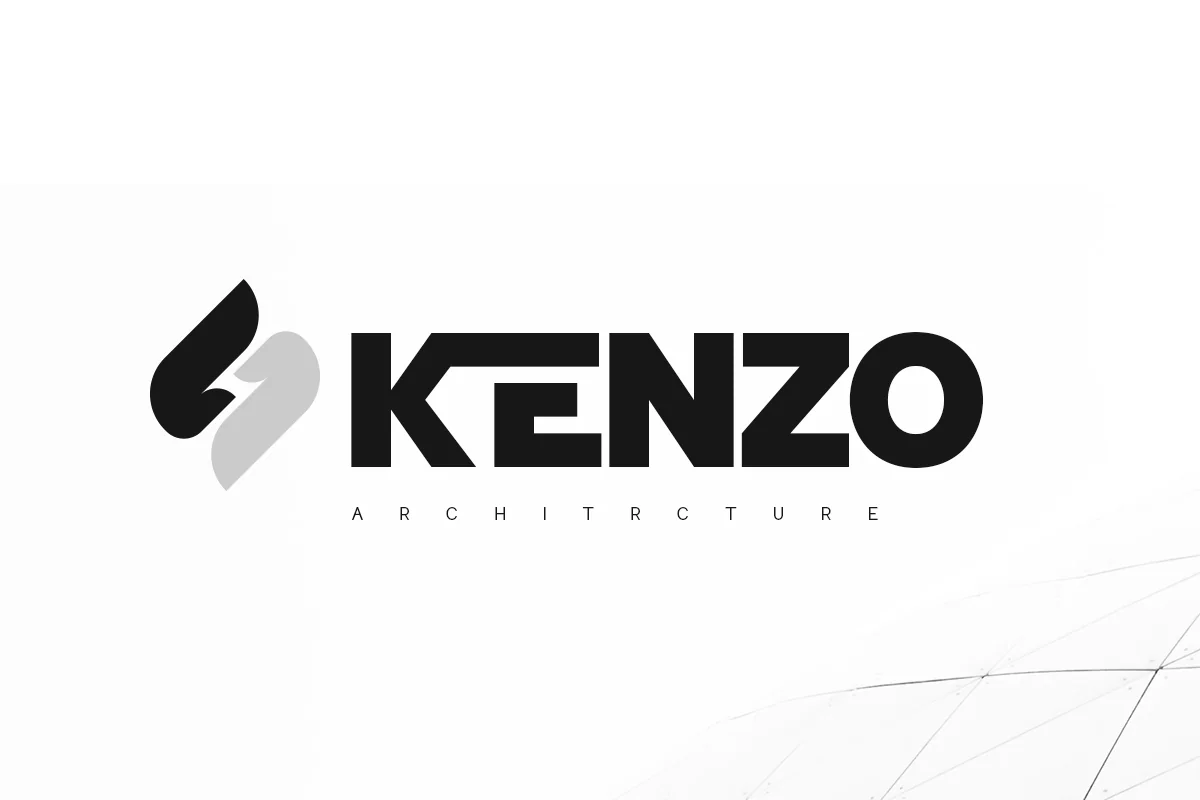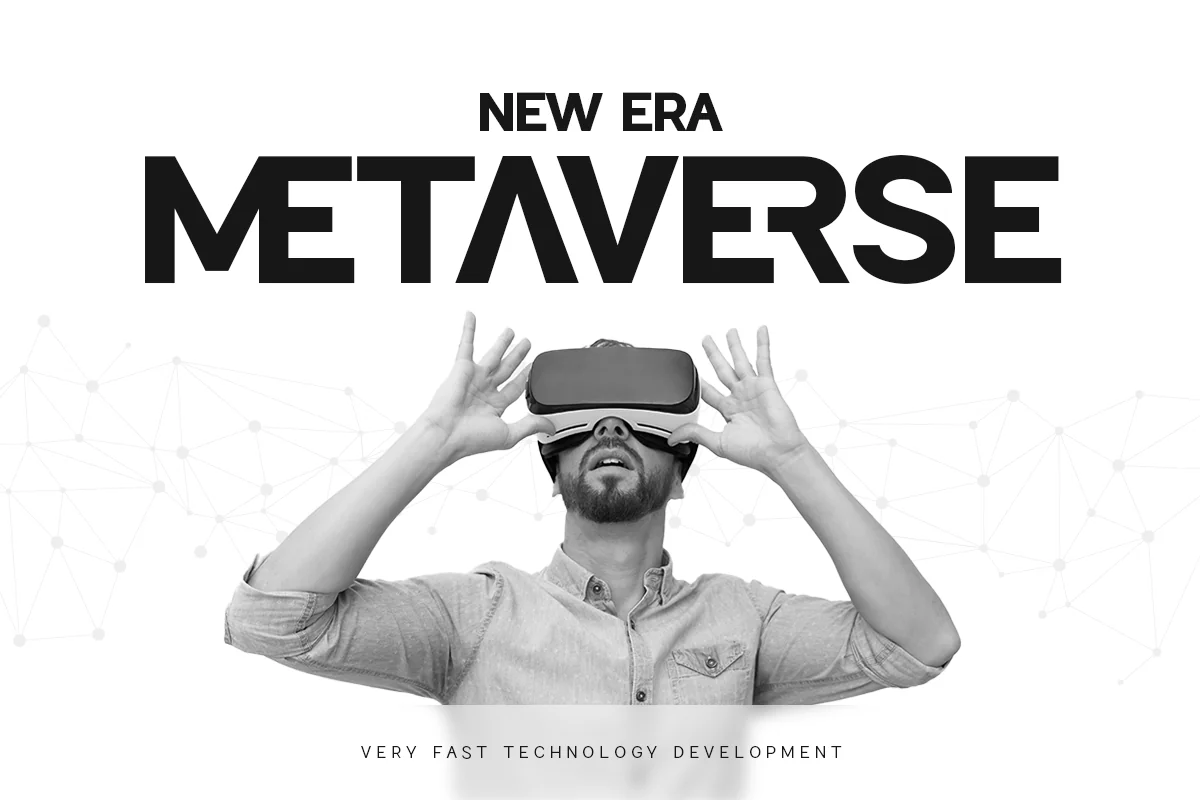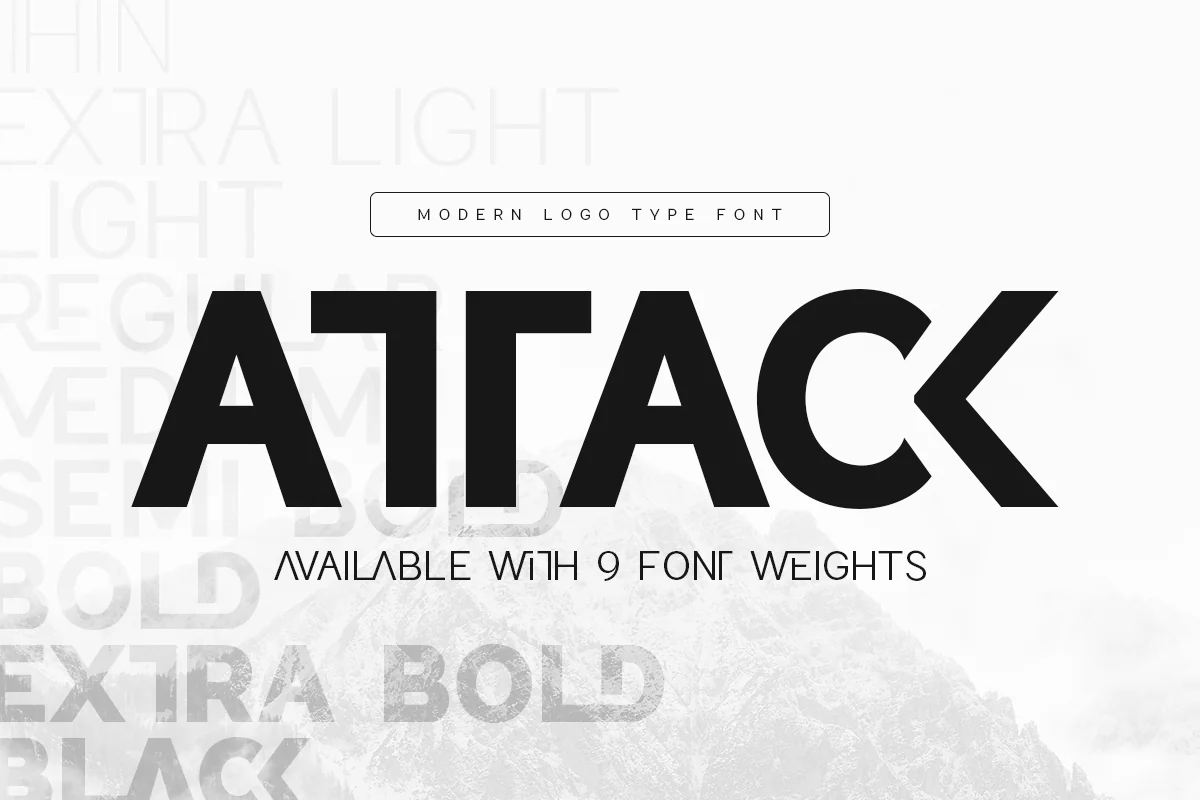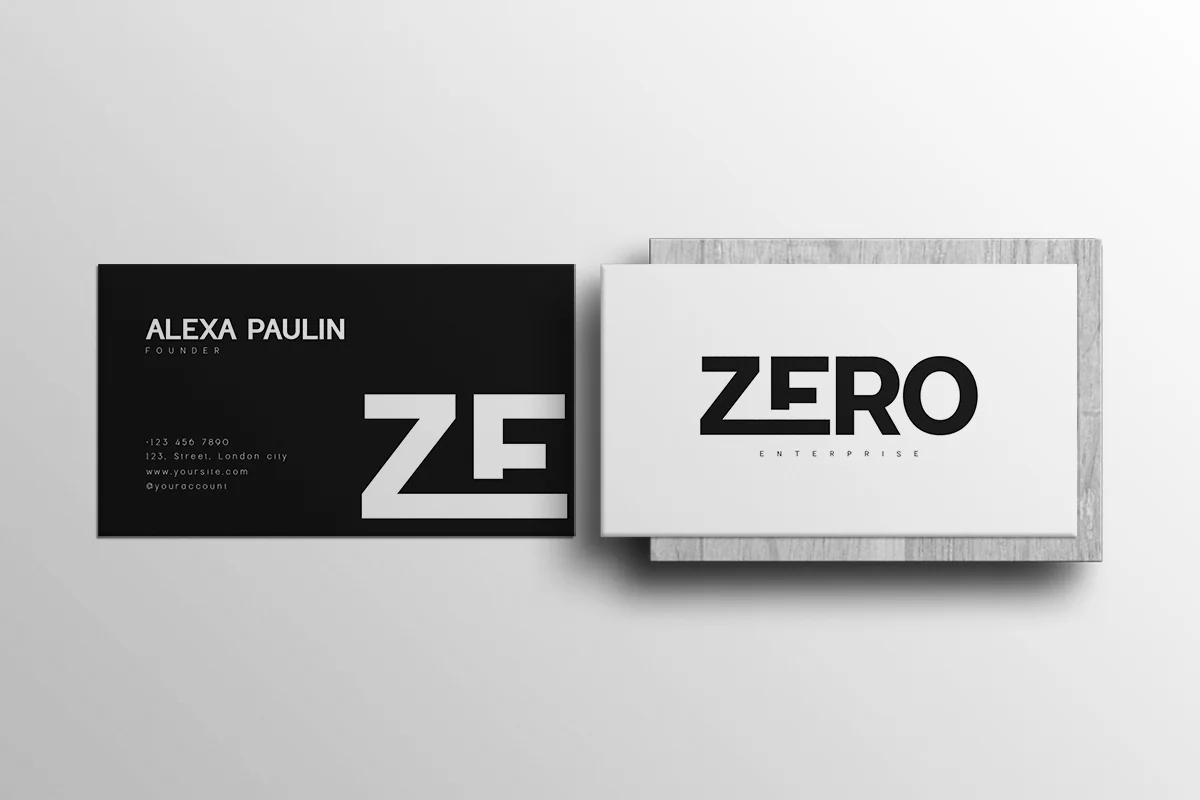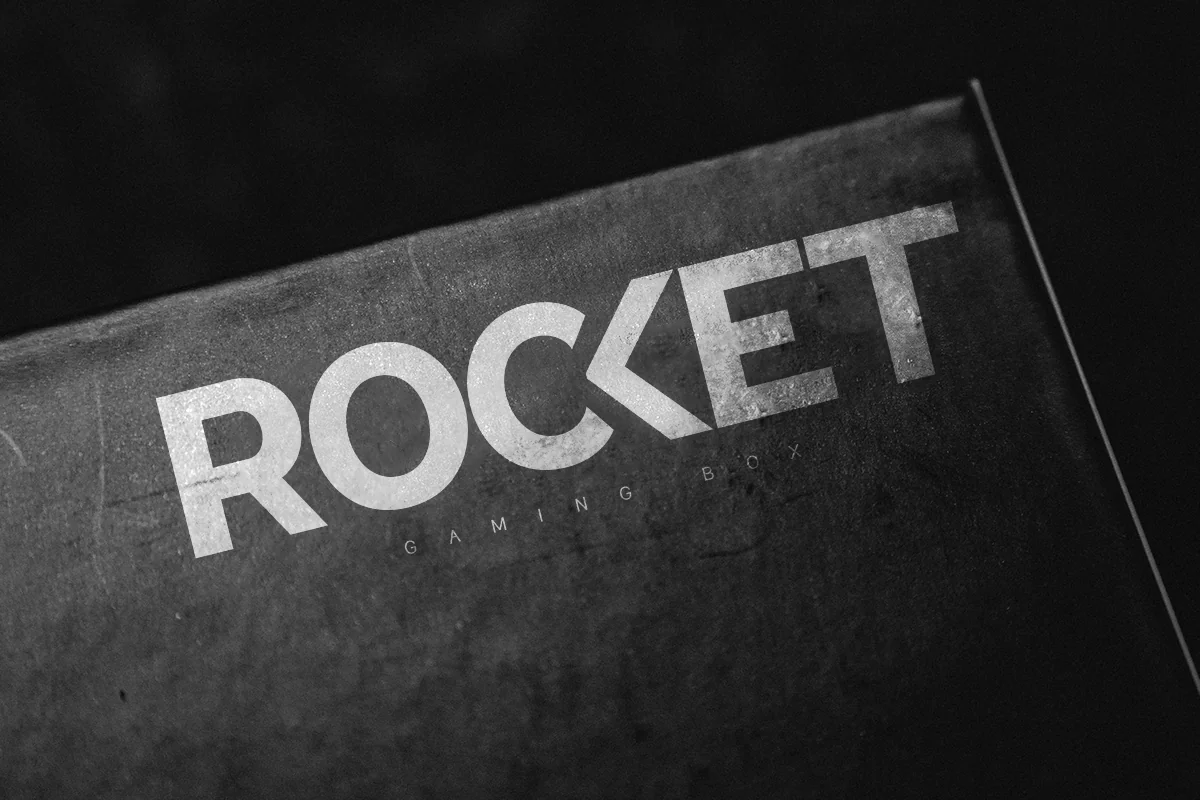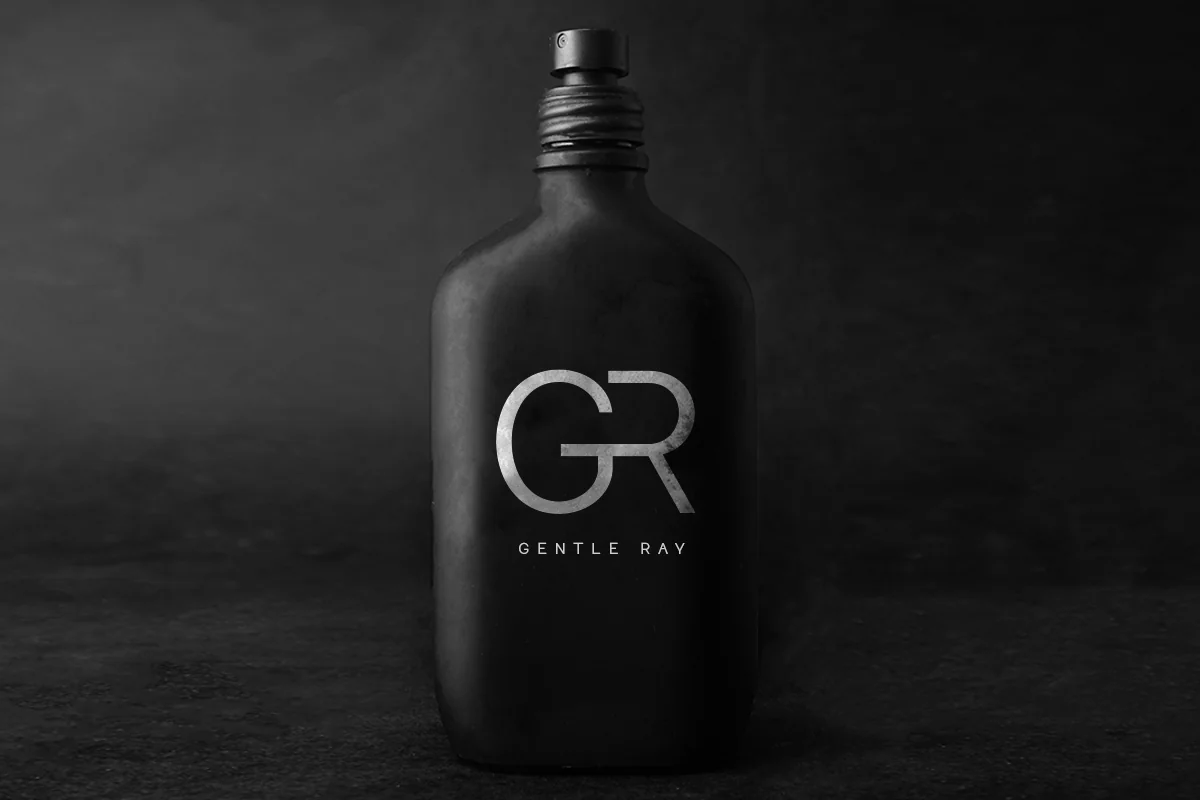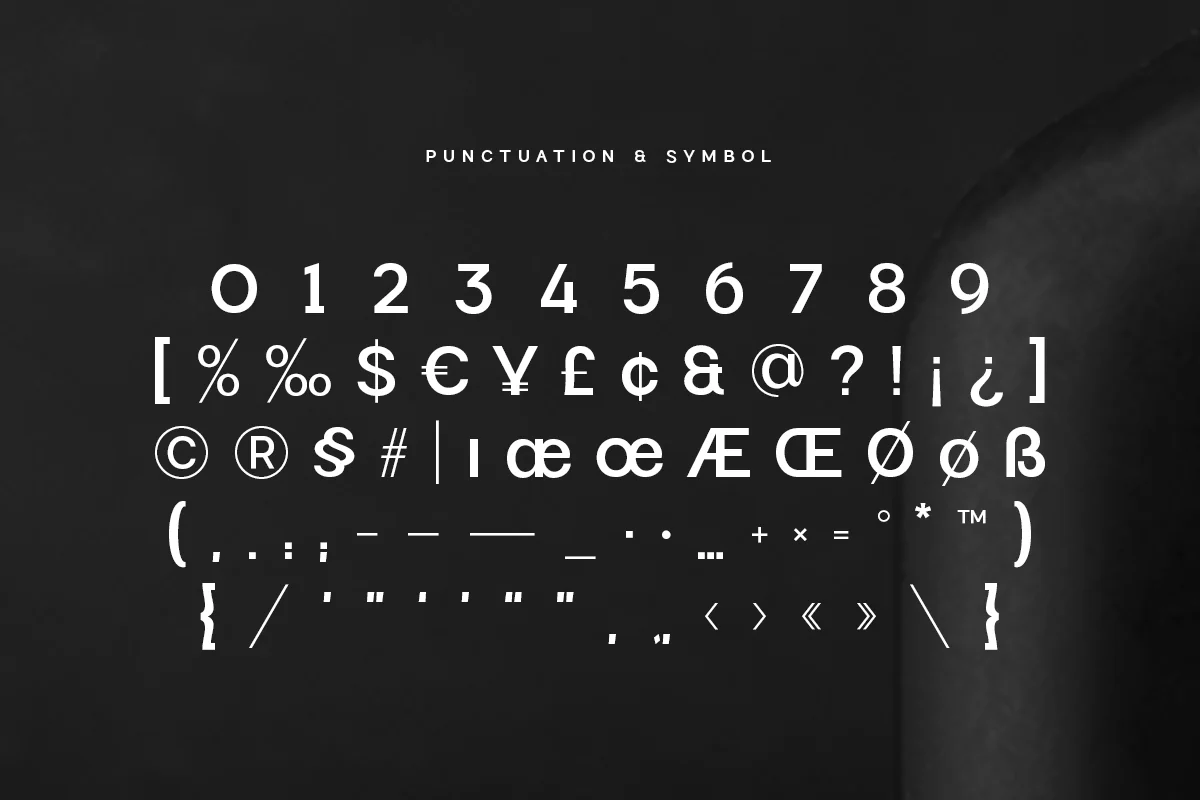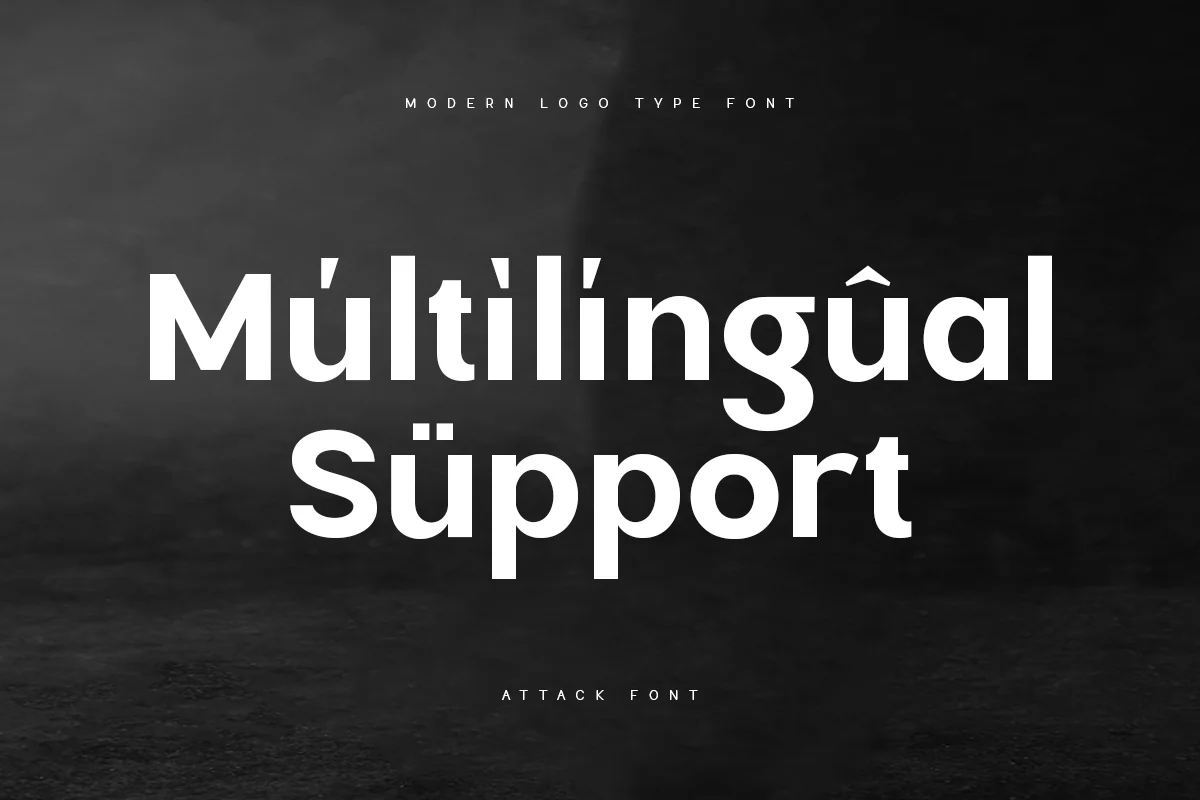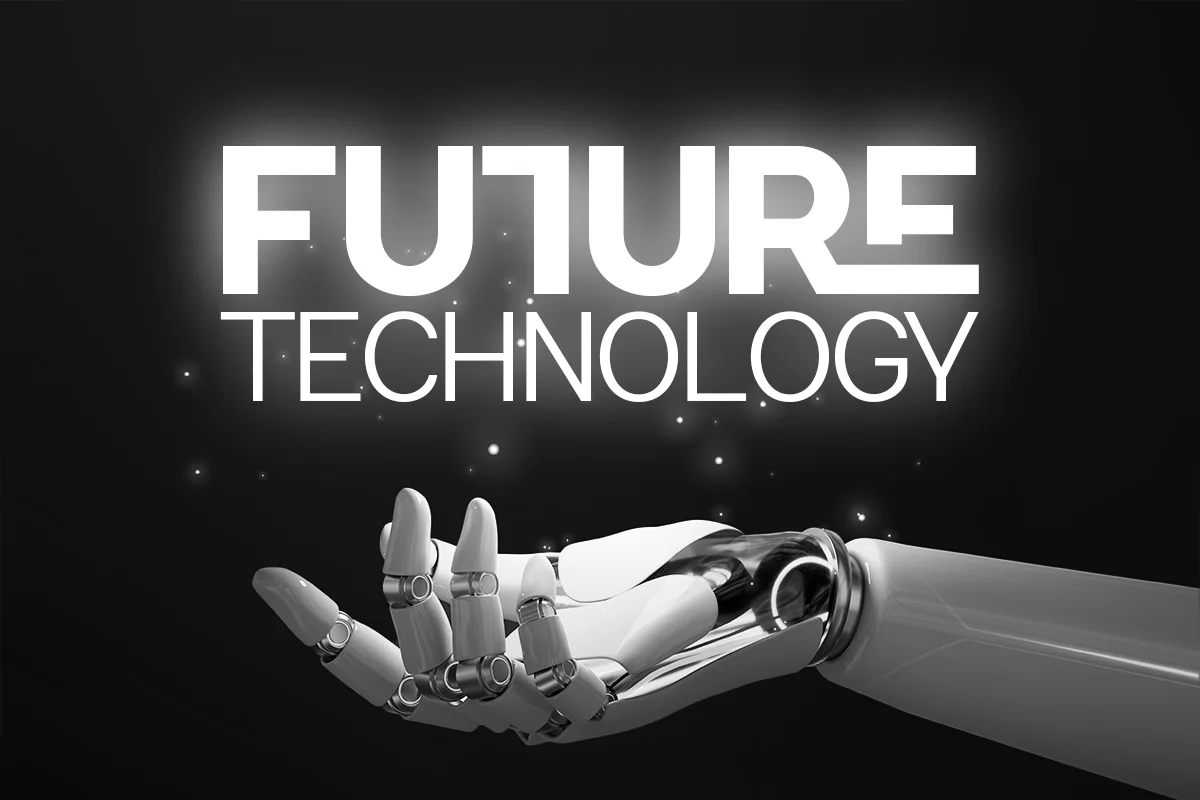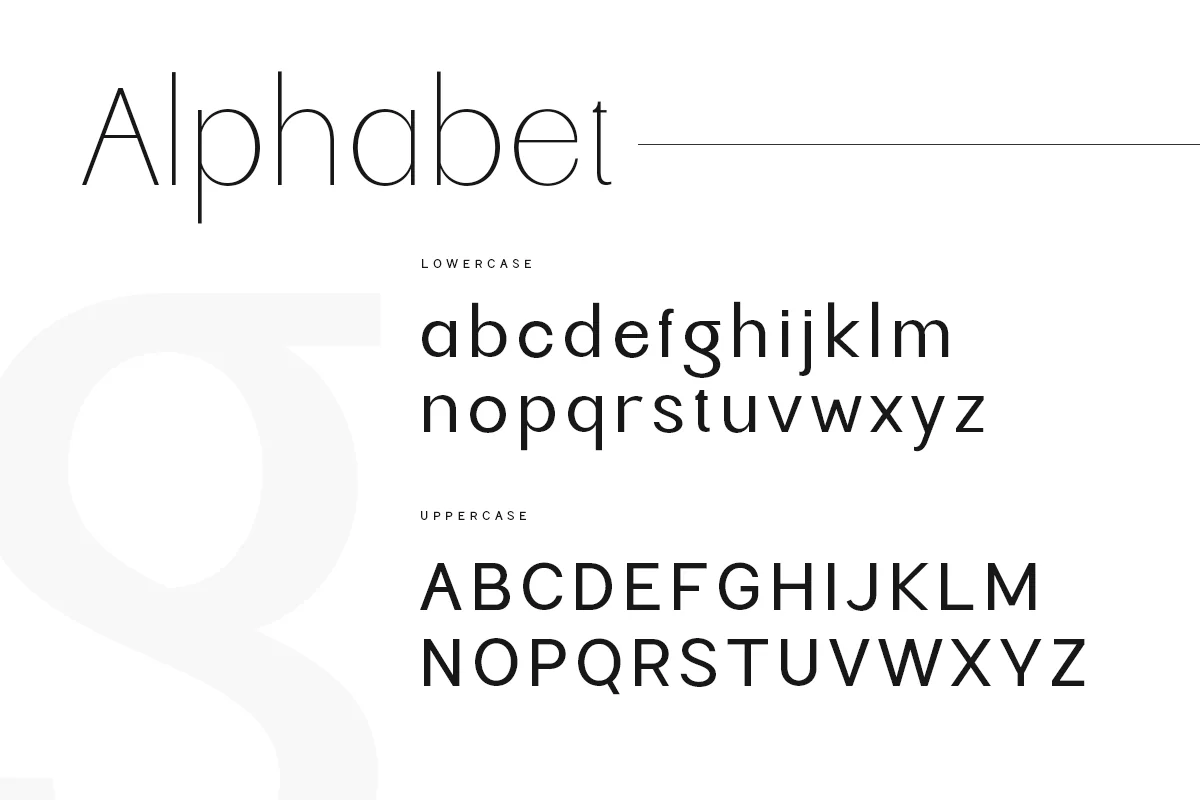
Attack – Corporate Logo Font
Attack is Corporate Logo Sans Serif Font is a well-balanced modern font with a minimalist, unique, and iconic sans serif, font that you can combine to get any variations and unique shapes easily just in seconds with choose ligatures of them. It is a sans serif font with minimalist style that perfect for branding projects, logo, poster designs, social media posts, advertisements, product packaging, product designs, label, photography, watermark, invitation, stationery, and any projects, it makes with a high level of legibility.
- Ligature Characters
- Character set A-Z
- Accented Characters (West Europe)